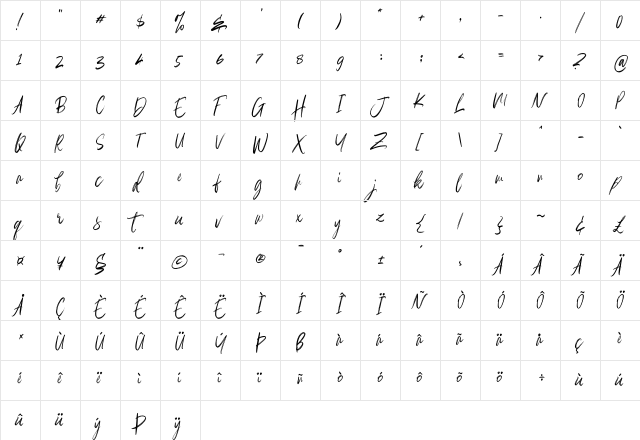
Balecimo Personal Use Regular
| Foundry | Dirtyline Studio |
Design Context for Balecimo Personal Use Typeface
Balecimo Personal Use is a composed and adaptable typeface that performs quietly and consistently across a wide range of design contexts.